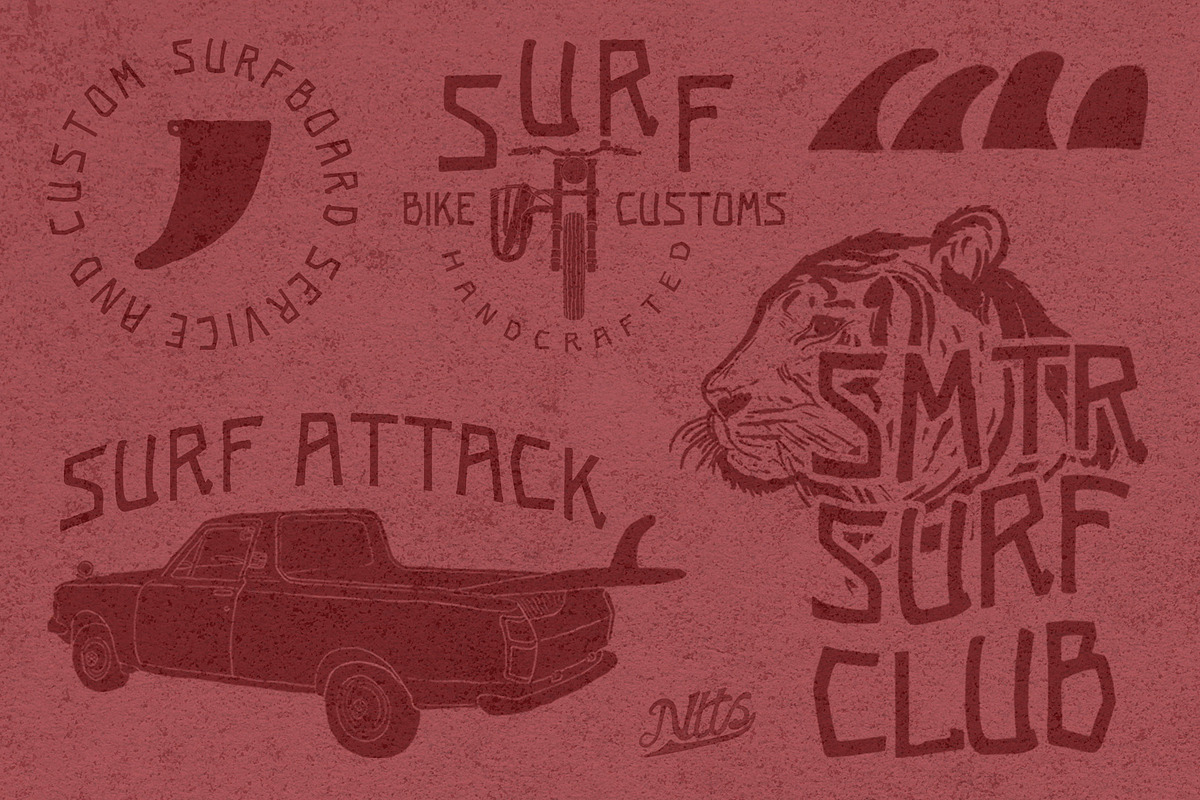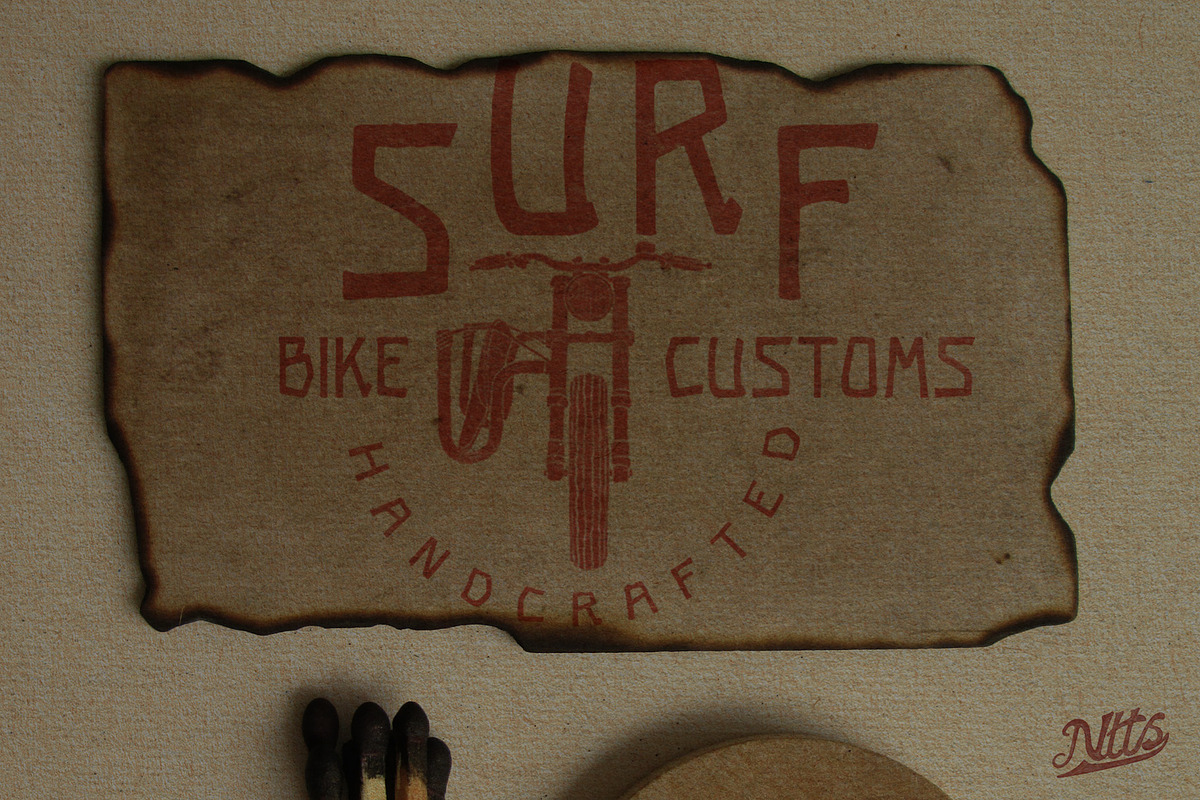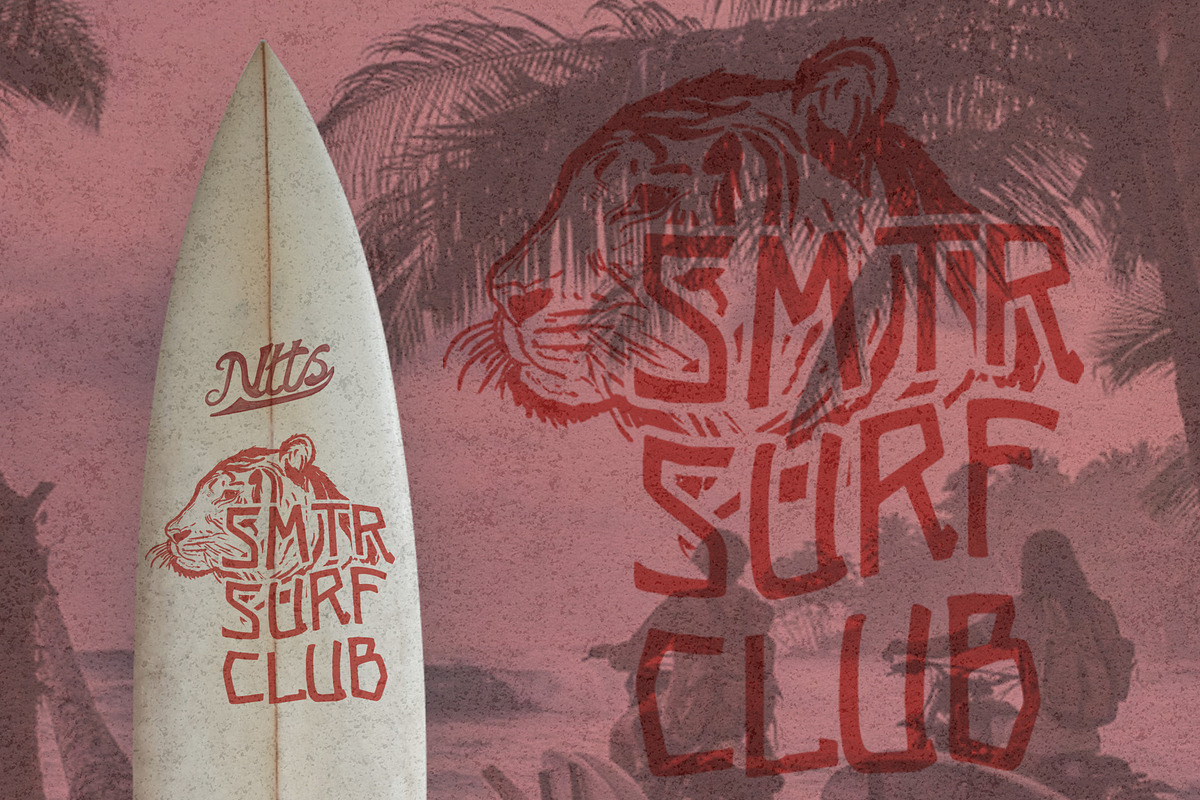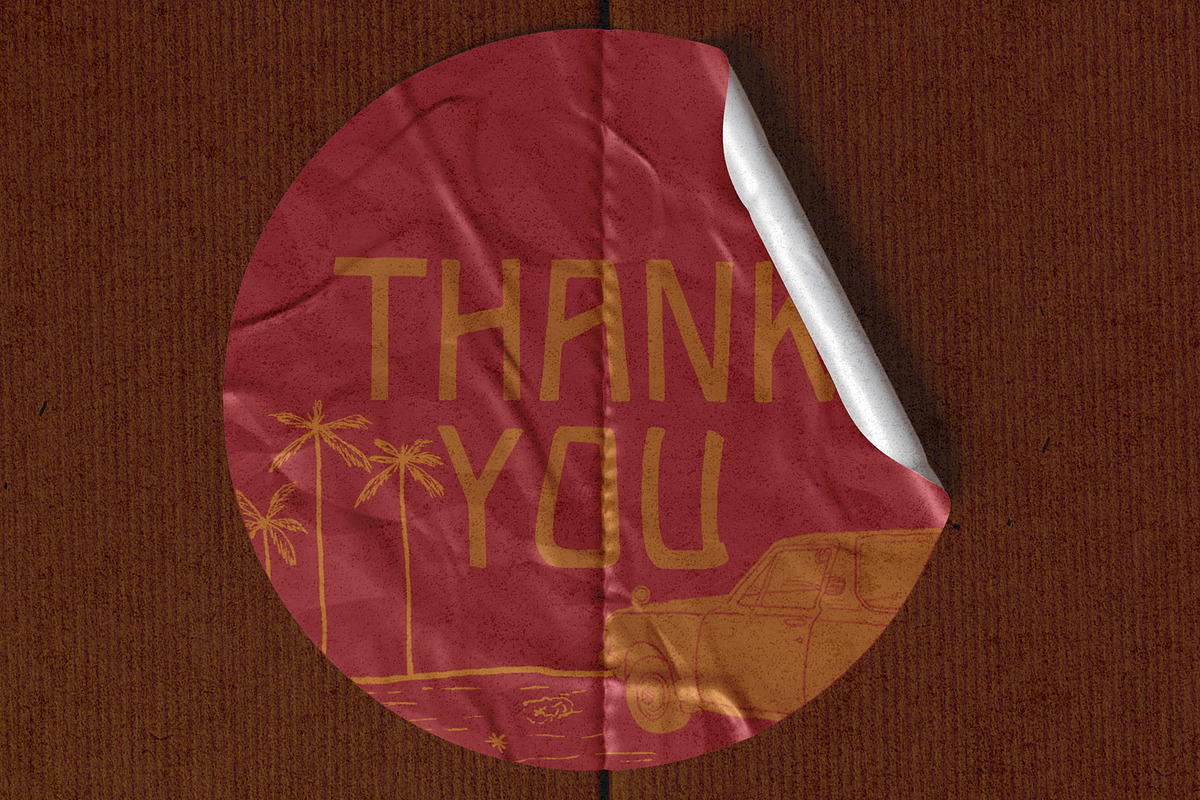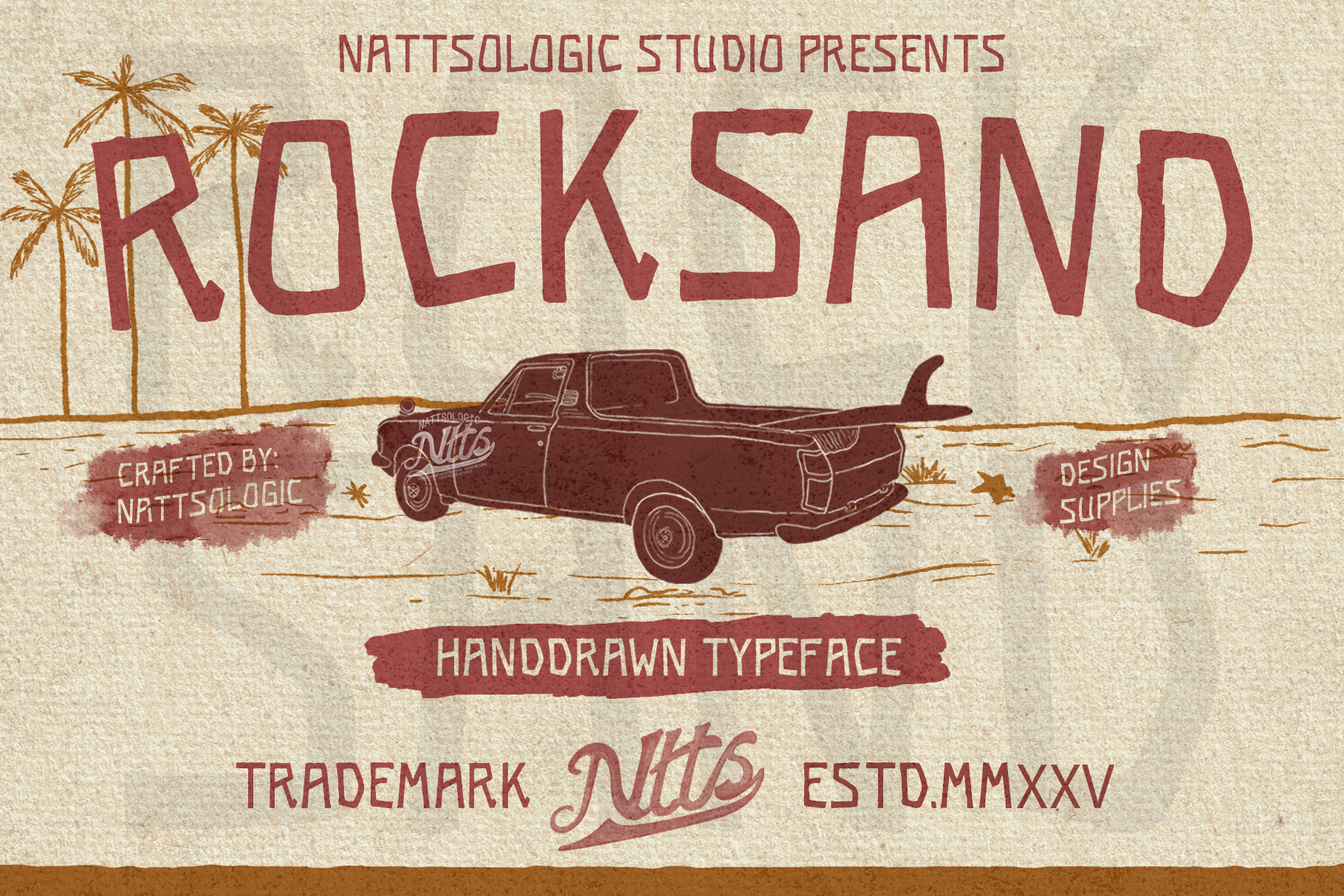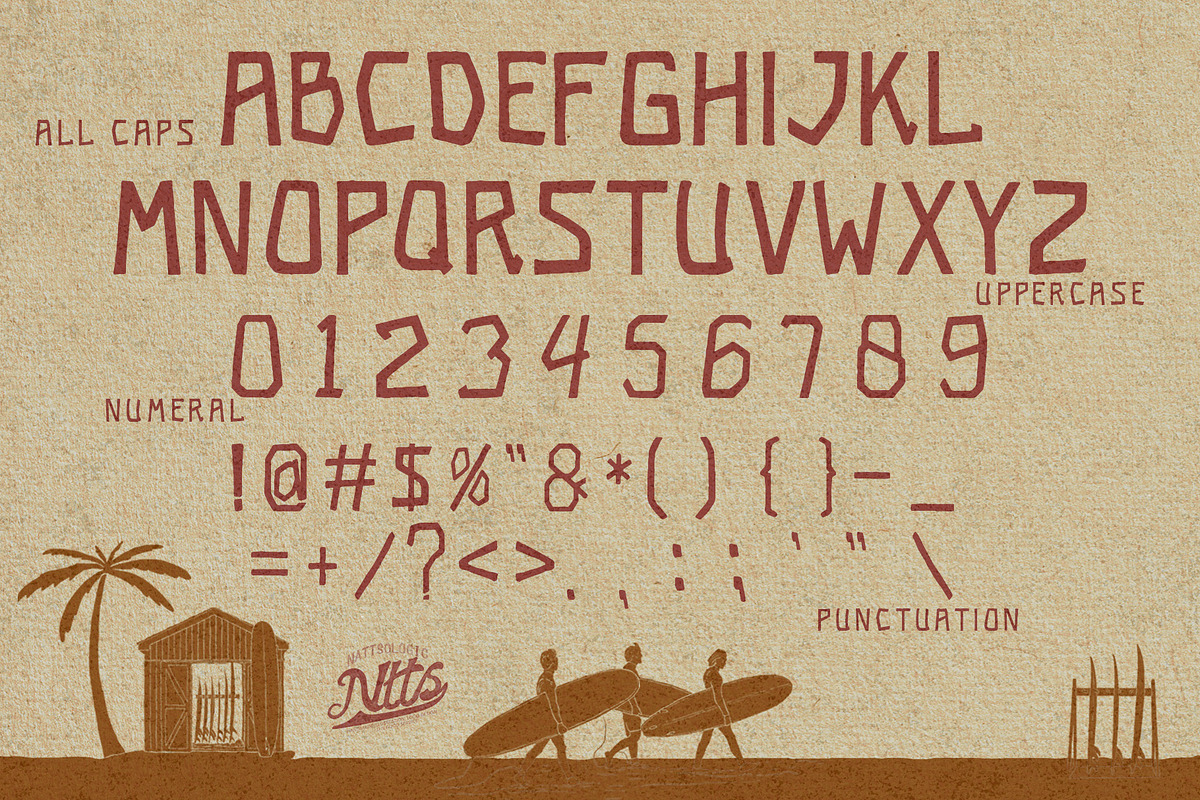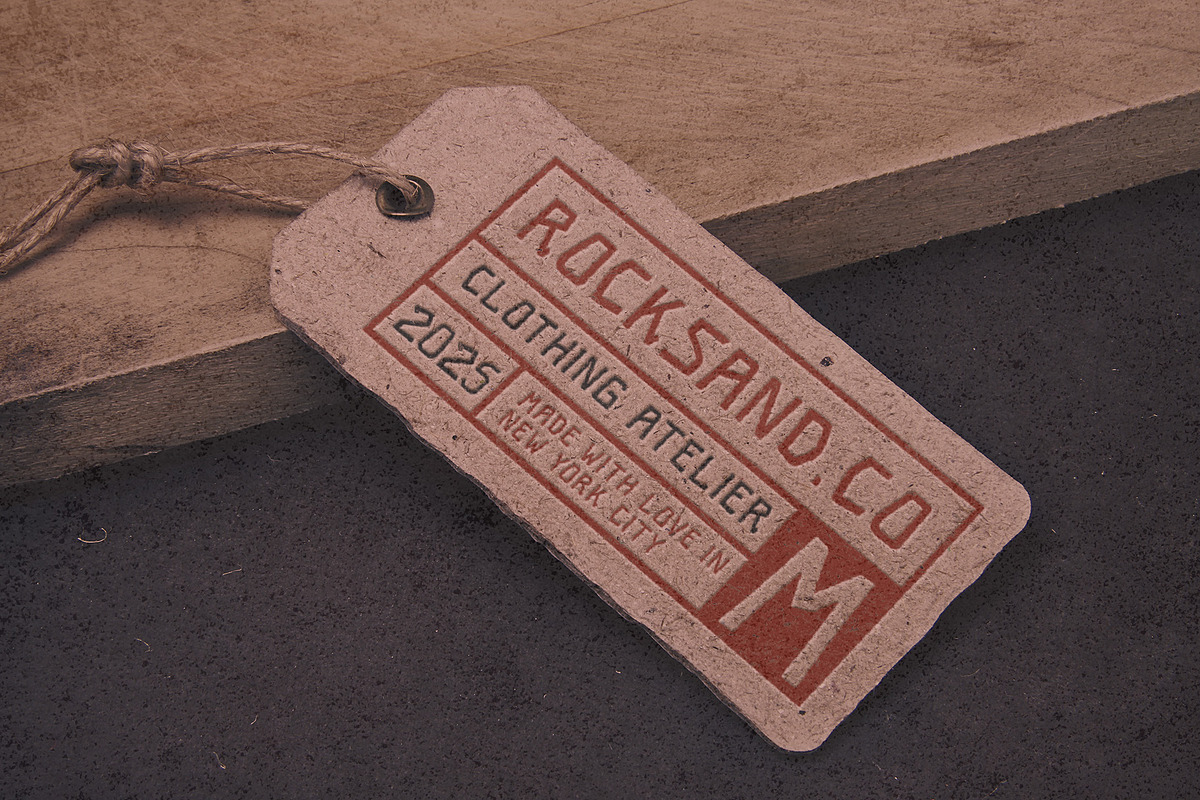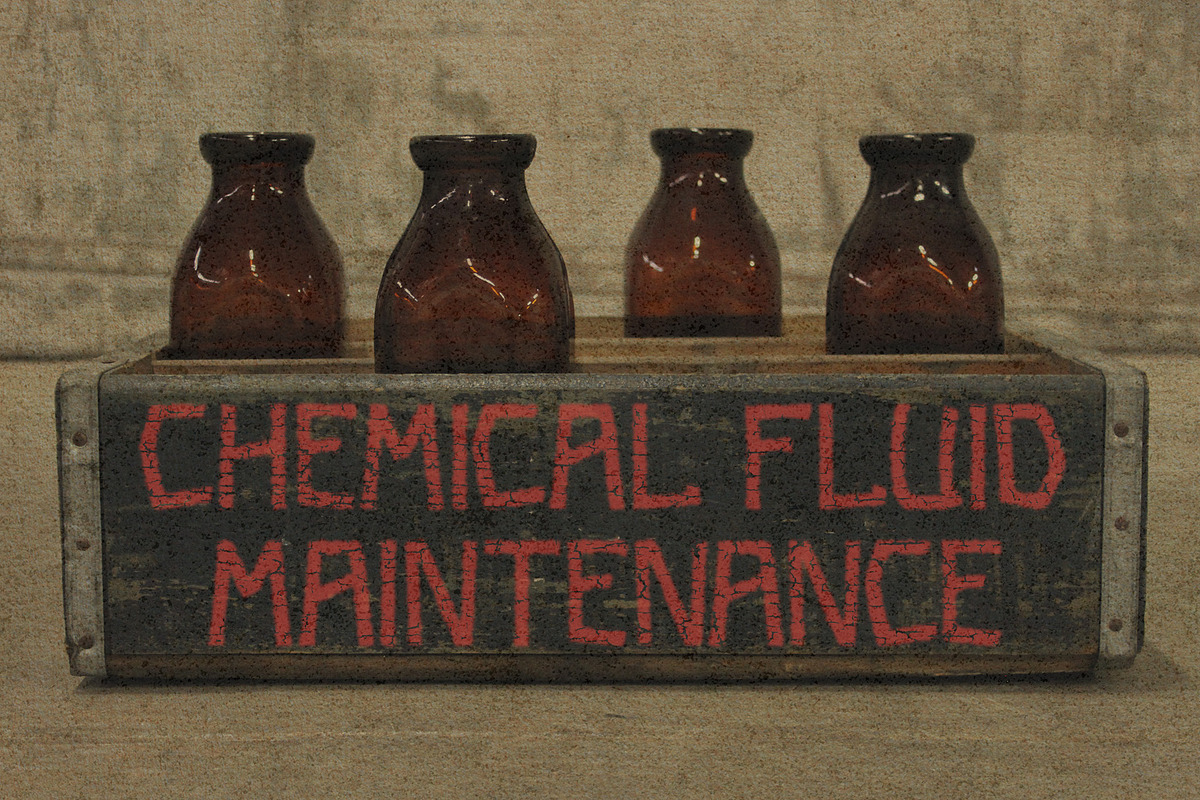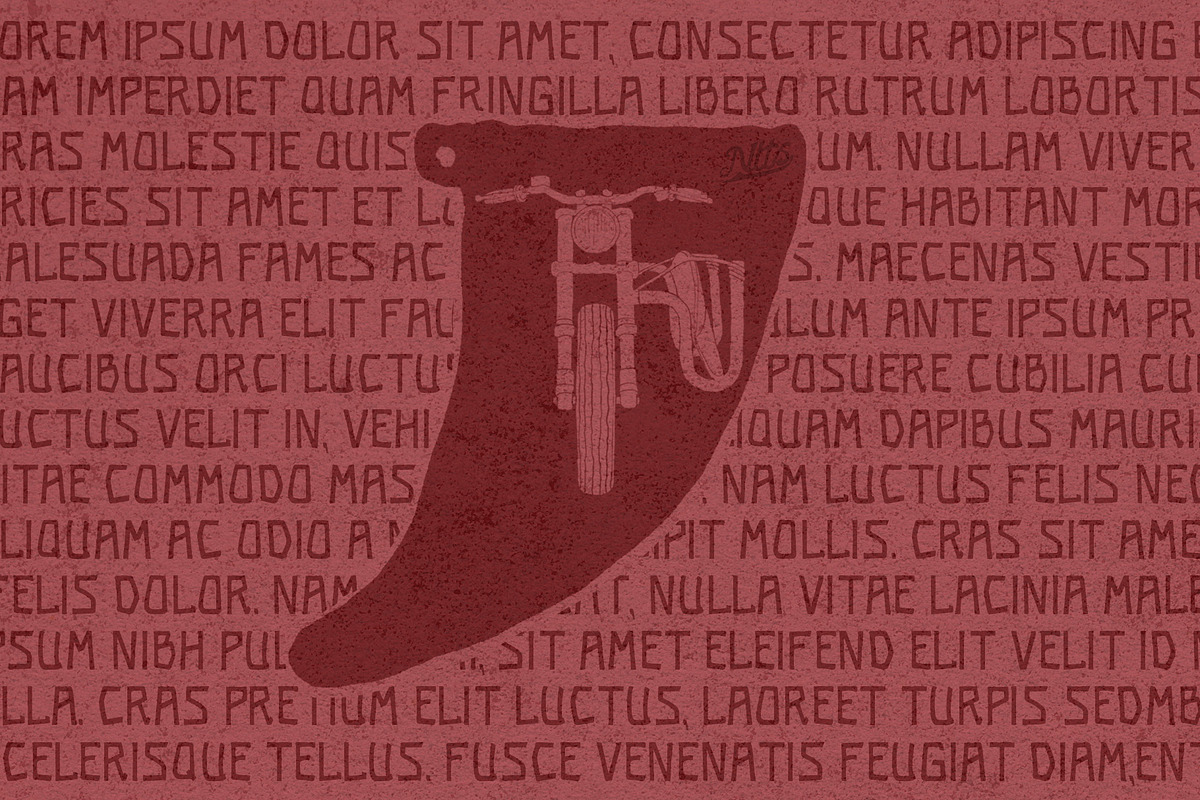
Rocksand Handdrawn Typeface
ROCKSAND Handdrawn Typeface by Nattsologic Studio.
Inspired by Surfing and Motorcycle vibes, use this font on a front-store sign or vintage poster. Each line is hand-drawn uniquely and will fit your brand. It's great for logos, branding, packaging design, posters, banners, stationery, t-shirts, or merchandise! Thanks!